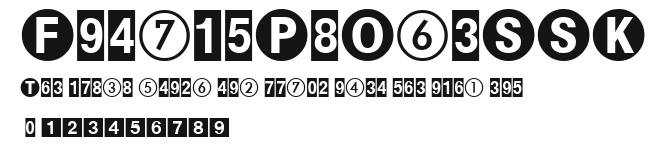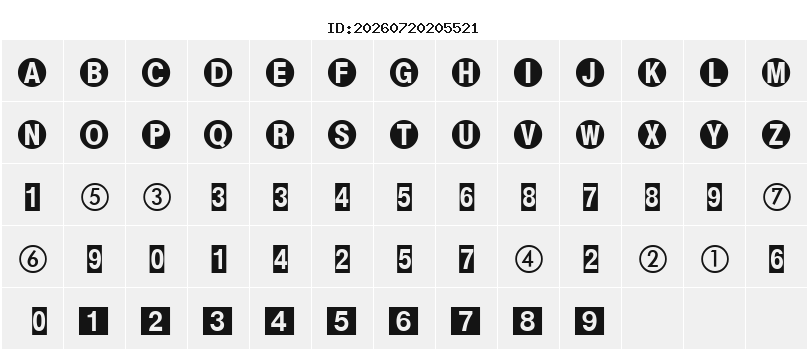
FormatPiOneSSK.ttf is a modern, elegant sans-serif font designed for ultimate readability and visual harmony. Perfect for branding, headlines, web design, and print materials.